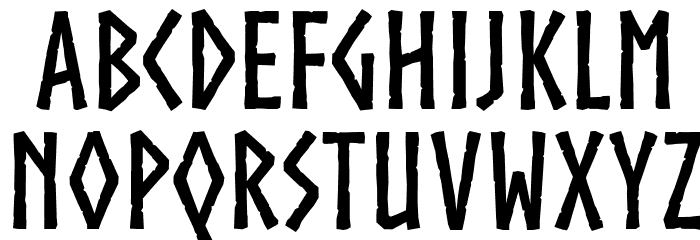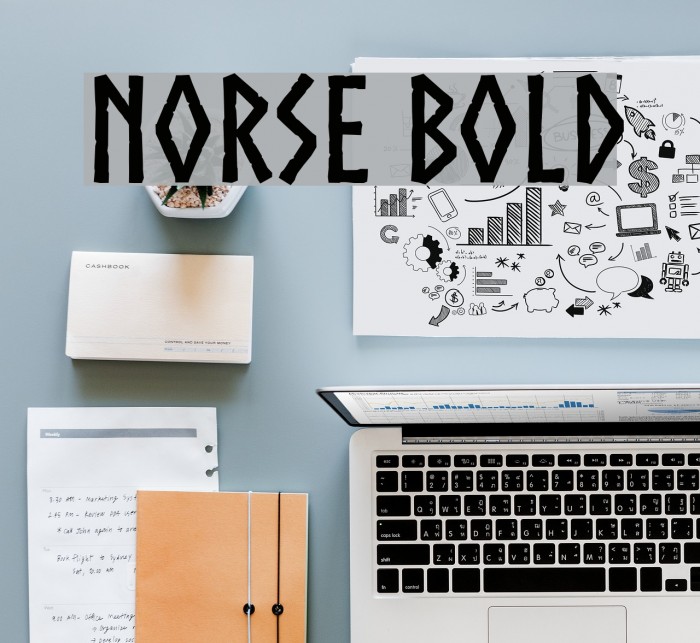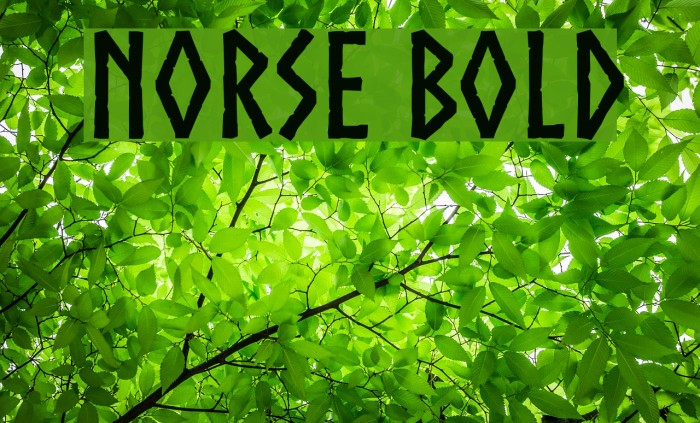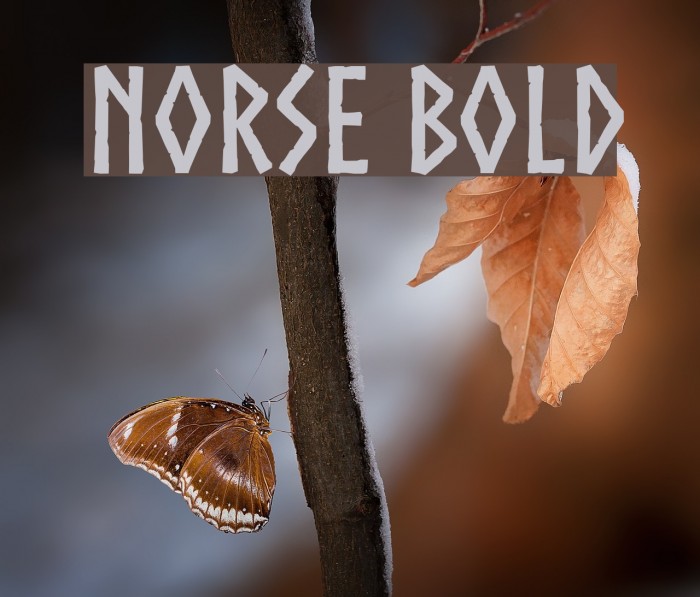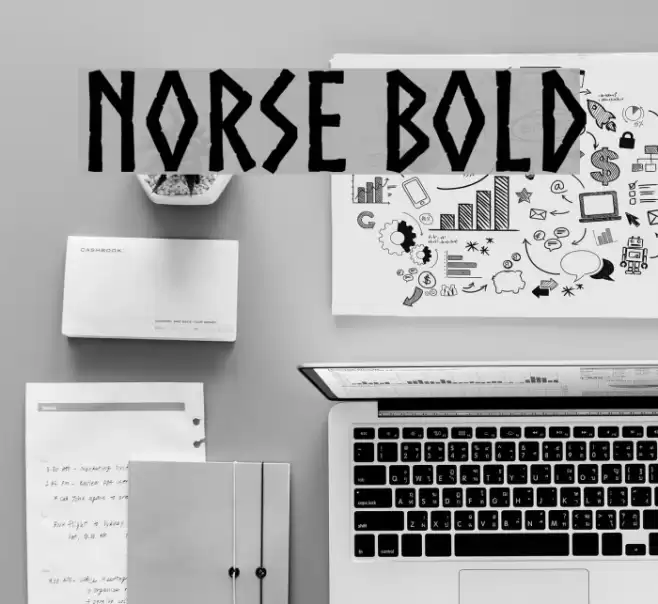
Norse Bold Font
This font features a bold and rugged design inspired by ancient runic alphabets, giving it a distinctly historical and mystical appearance. The characters are angular and sharp, with a hand-carved look that evokes a sense of ancient Nordic or Viking aesthetics. The uppercase and lowercase letters maintain a consistent style, with a slightly irregular edge that adds to the handcrafted feel. Numbers and special characters follow the same design principles, ensuring a cohesive look across all text elements. The font's boldness and unique style make it ideal for projects that require a strong, impactful visual presence.
A bold, runic-inspired font with a rugged, historical aesthetic.
- Proposed Projects: Ideal for fantasy-themed designs, historical projects, video game titles, and branding that requires a strong, ancient look.
- Overall Style: Vintage